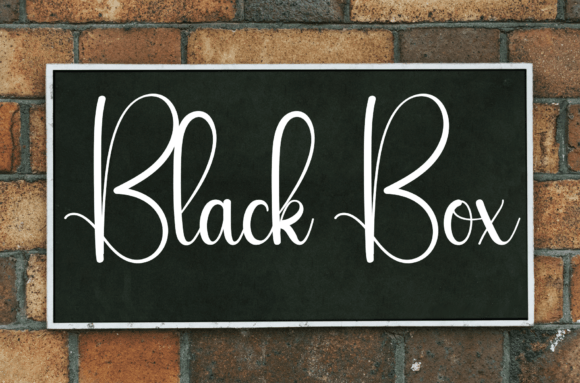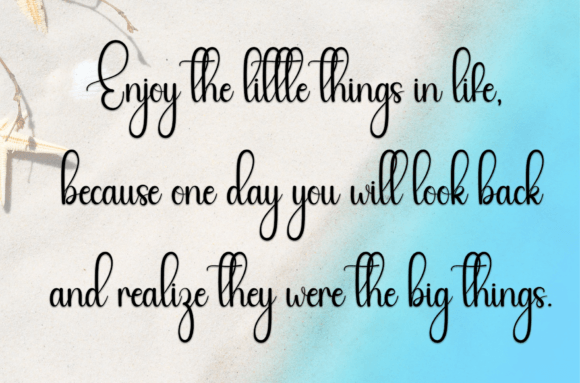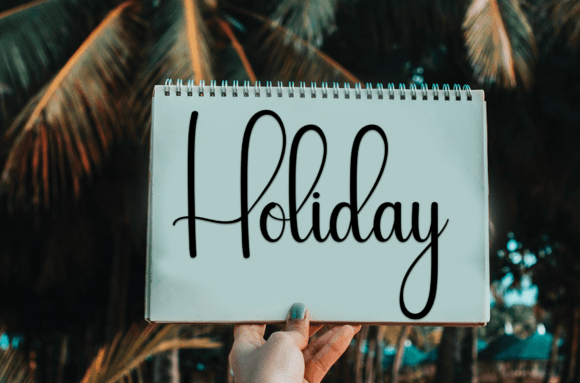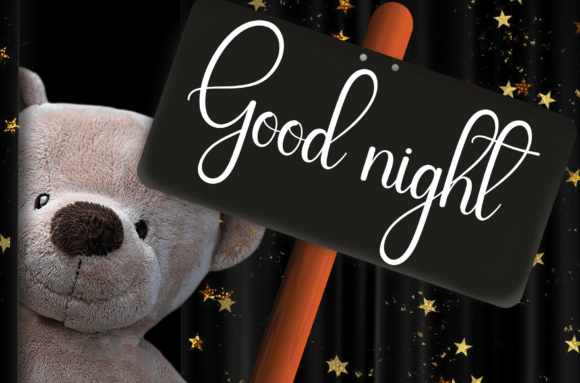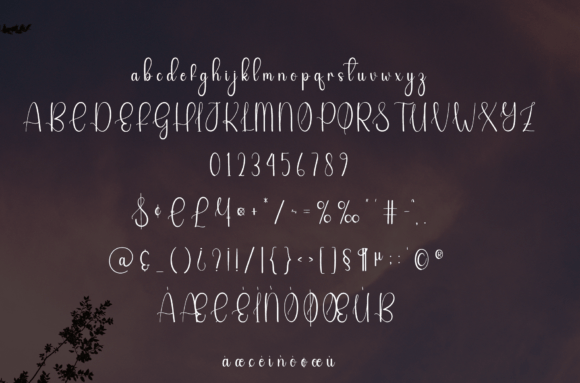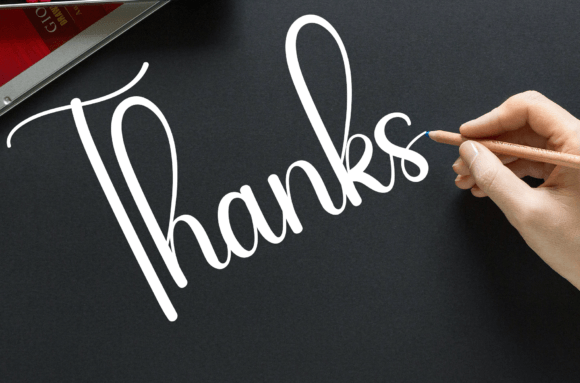
Introducing Chocolate Font: The Sweetest Addition to Your Design Toolkit
Are you a designer or crafter looking for a font that adds a touch of whimsy and fun to your projects? Look no further than Chocolate Font, a sweet and friendly handwritten font that’s perfect for a variety of creative applications. In this article, we’ll dive into the world of Chocolate Font, exploring its features, benefits, and uses, and why it’s a must-have for anyone looking to add a dash of personality to their designs.
What is Chocolate Font?
Chocolate Font is a beautiful, handwritten font that’s designed to bring a smile to your face. With its creative and cute aesthetic, this font is ideal for writing wedding invitations, cards, or any other design that might need a fun touch. Whether you’re a professional designer or a DIY crafter, Chocolate Font is the perfect choice for anyone looking to add a personal and playful touch to their projects.
Key Features of Chocolate Font
- Handwritten aesthetic: Chocolate Font has a warm, handwritten feel that’s perfect for creating personal and engaging designs.
- Cute and creative: This font is designed to be fun and playful, making it ideal for projects that require a touch of whimsy.
- Versatile: Chocolate Font can be used for a wide range of applications, from wedding invitations and cards to posters, flyers, and more.
- Easy to read: Despite its playful aesthetic, Chocolate Font is easy to read and understand, making it perfect for body text and headings.
Benefits of Using Chocolate Font
So why choose Chocolate Font for your next design project? Here are just a few benefits of using this sweet font:
- Adds personality to your designs: Chocolate Font is the perfect way to add a touch of personality and whimsy to your designs, setting them apart from more traditional and boring fonts.
- Creates an emotional connection: The friendly and approachable aesthetic of Chocolate Font helps to create an emotional connection with your audience, making your designs more relatable and engaging.
- Perfect for creative projects: Whether you’re working on a wedding invitation, a card, or a poster, Chocolate Font is the perfect choice for creative projects that require a touch of fun and playfulness.
Using Chocolate Font in Your Designs
So how can you use Chocolate Font in your designs? Here are a few ideas to get you started:
- Wedding invitations: Chocolate Font is perfect for wedding invitations, adding a touch of romance and whimsy to your designs.
- Cards and stationery: This font is also great for cards and stationery, adding a personal and playful touch to your correspondence.
- Posters and flyers: Chocolate Font can be used for posters and flyers, adding a touch of fun and creativity to your advertising and promotional materials.
Tips and Tricks for Working with Chocolate Font
Here are a few tips and tricks for working with Chocolate Font:
- Use it sparingly: While Chocolate Font is a beautiful and playful font, it can be overwhelming if used too much. Use it sparingly to add a touch of whimsy to your designs.
- Pair it with other fonts: Chocolate Font pairs well with other fonts, such as sans-serif fonts and script fonts. Experiment with different pairings to find the perfect combination for your design.
- Experiment with colors: Chocolate Font looks great in a variety of colors, from bright and bold to soft and pastel. Experiment with different colors to find the perfect look for your design.
In conclusion, Chocolate Font is a sweet and friendly handwritten font that’s perfect for designers and crafters looking to add a touch of whimsy and fun to their projects. With its creative and cute aesthetic, this font is ideal for writing wedding invitations, cards, or any other design that might need a fun touch. So why not give Chocolate Font a try? With its versatility, ease of use, and emotional appeal, it’s sure to become a favorite in your design toolkit.